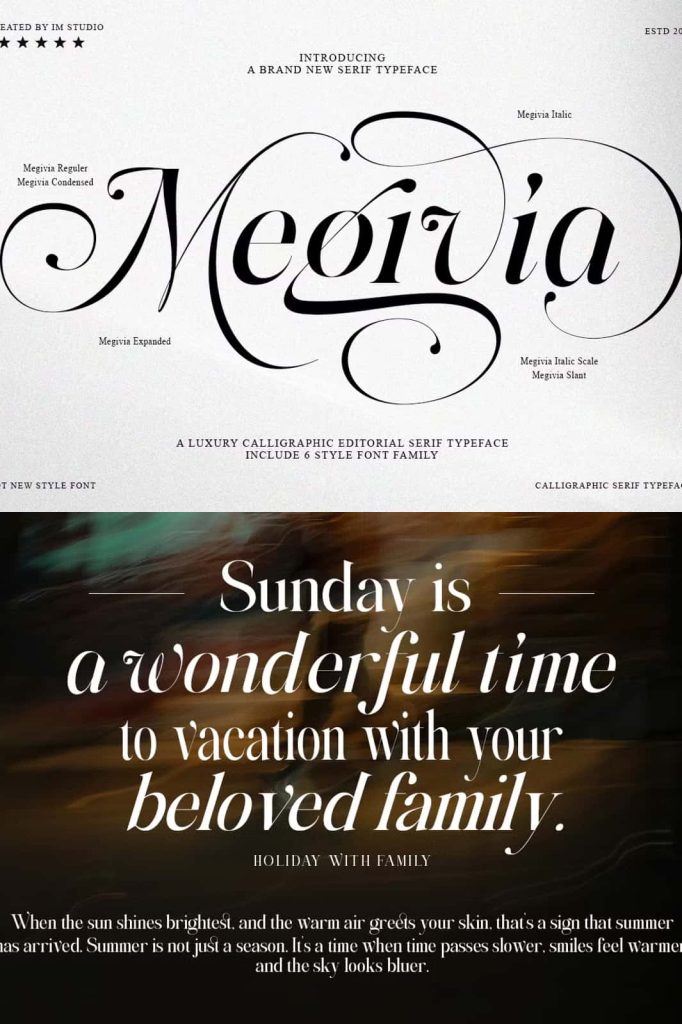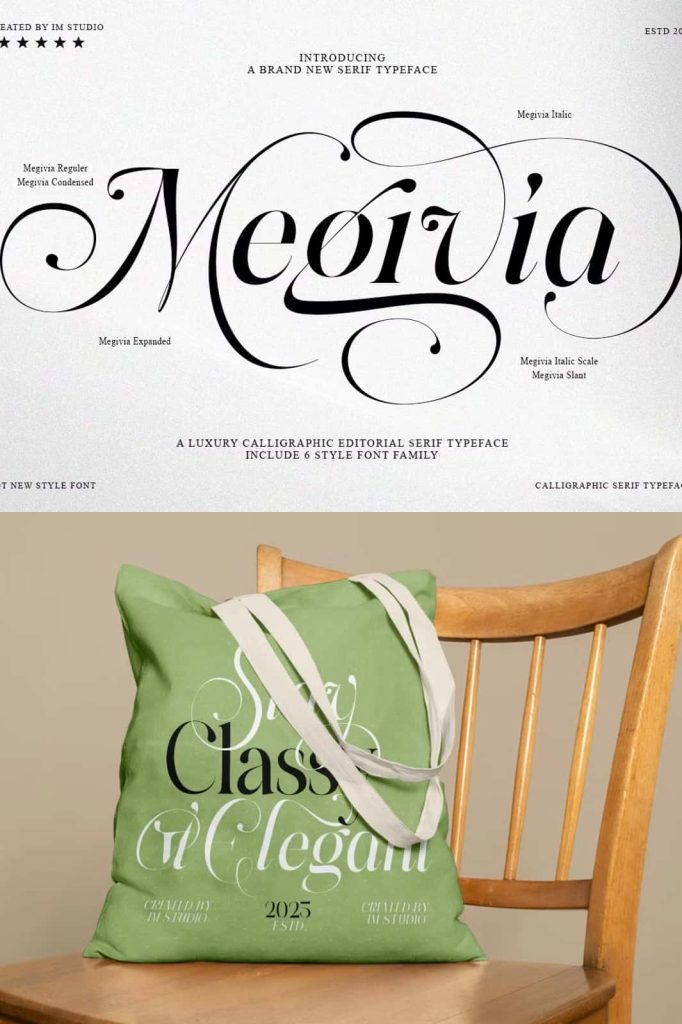
Megivia is a graceful calligraphy serif typeface, blending timeless elegance with modern sophistication. Designed with expressive strokes and subtle details, this typeface offers a perfect balance of romance and structure.